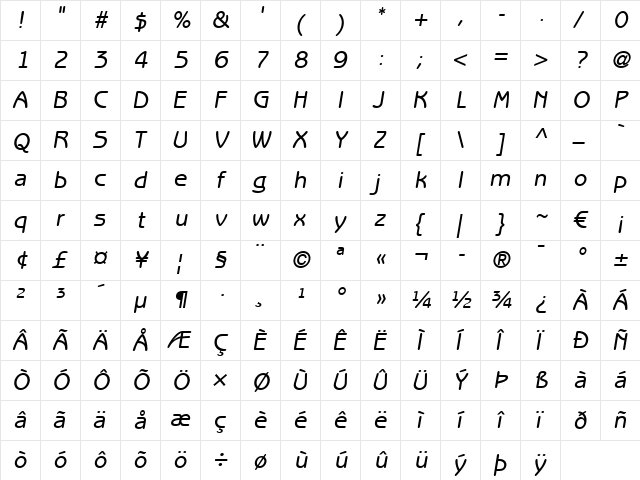
BenguiatGothic LT Medium Italic Font Preview
Design Context for BenguiatGothic LT Medium Typeface
BenguiatGothic LT Medium takes a clean, functional approach — its unadorned letterforms prioritise legibility and work reliably across screen and print environments. The dynamic lean of this cut emphasises speed and emphasis in any layout. Its slender proportions lend an understated elegance to any composition.